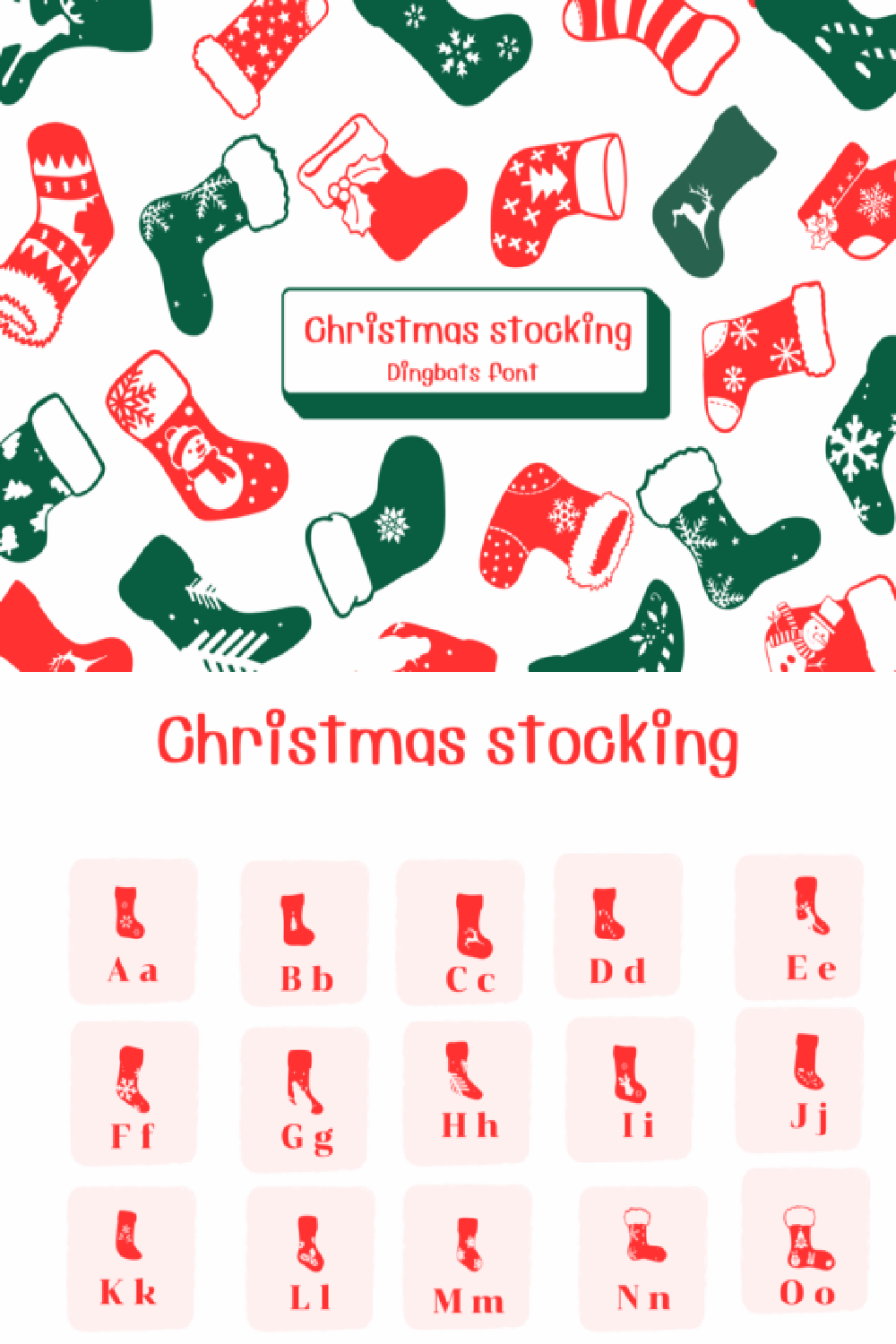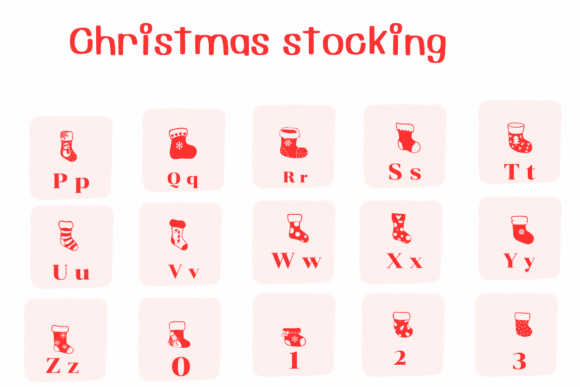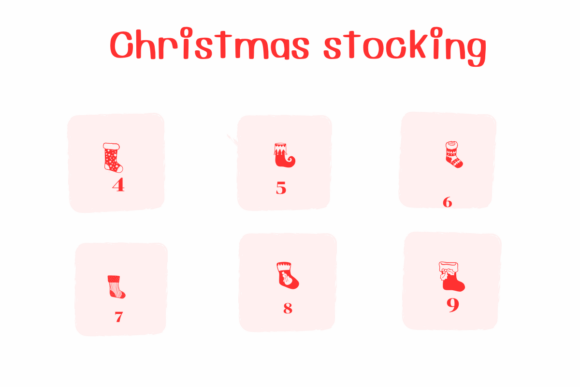
Christmas Stocking Font
About the Christmas Stocking Font
We are excited to introduce Christmas Stocking Font, a must-have typeface for any serious designer. A Christmas Stocking dingbat font is a fun and decorative font where each letter or symbol is replaced with a small picture of Christmas stockings. Perfect for holiday designs like cards, invitations, or crafts!